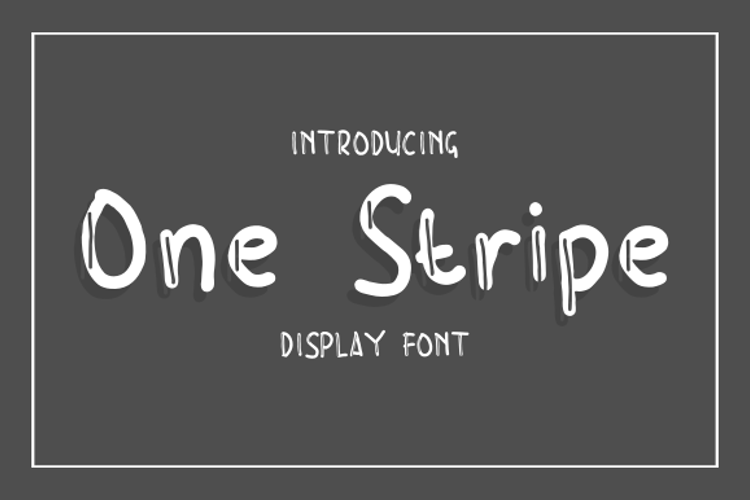
One Stripe Font
One Stripe is a unique and casual display font. It will look great in logos, crafts, posters, social media posts and anything that requires a relaxed touch!